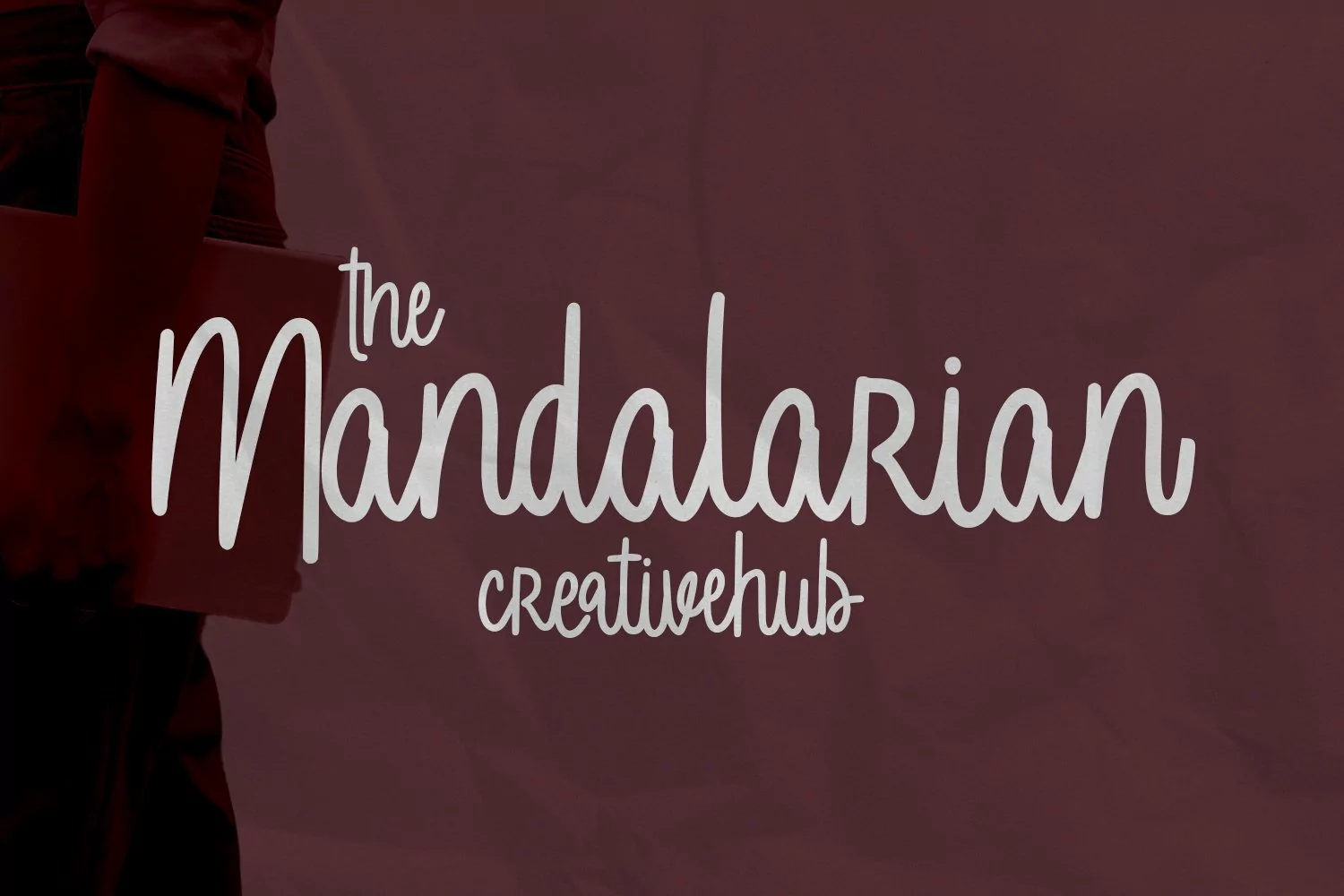
Sweet Peanuts is a cute sweety handwritten script font. With regular clean stroke, fun character with some of ligatures. To give you an extra creative work. Sweet Peanuts font support multilingual more than 100+ language. This font is good for logo design, Social media, Movie Titles, Books Titles, a short text even a long text letter and good for your secondary text font with sans or serif. Make a stunning work with Sweet Peanuts font.